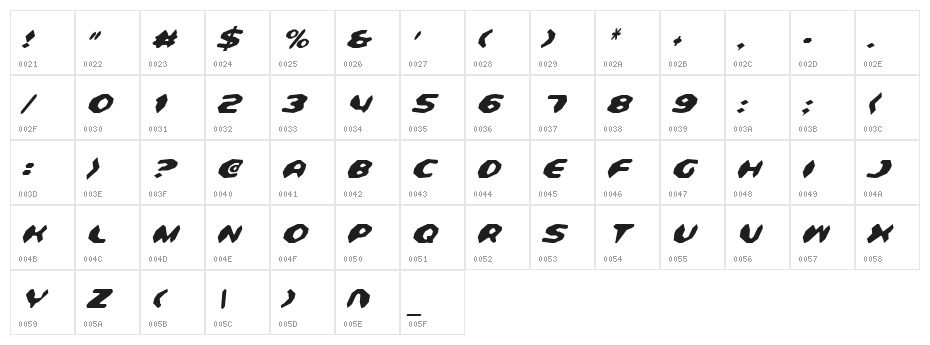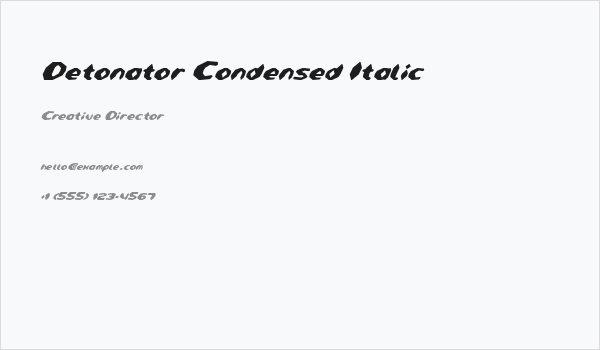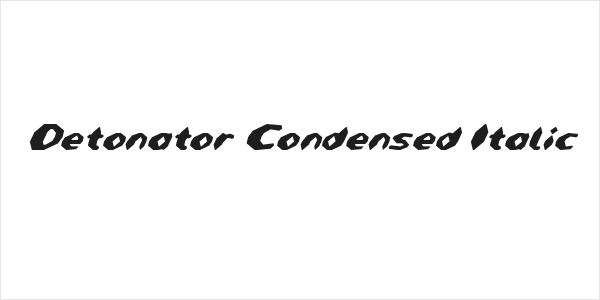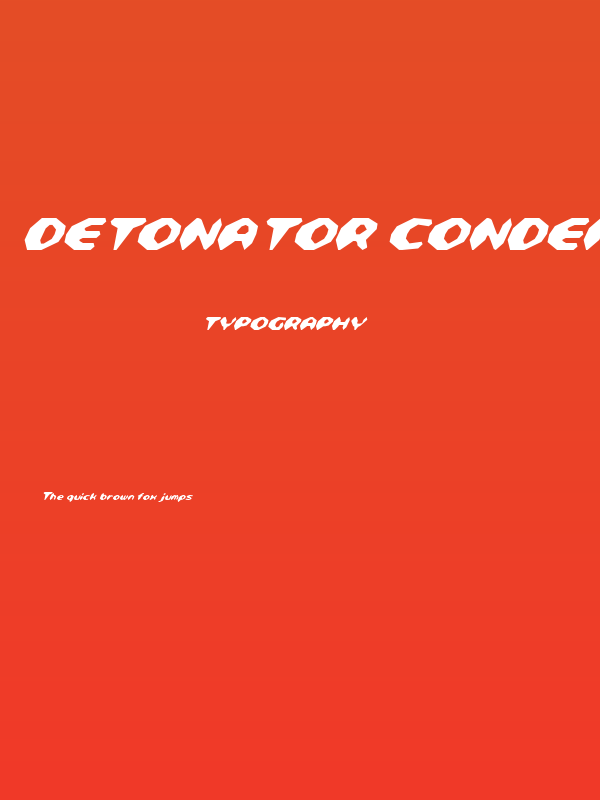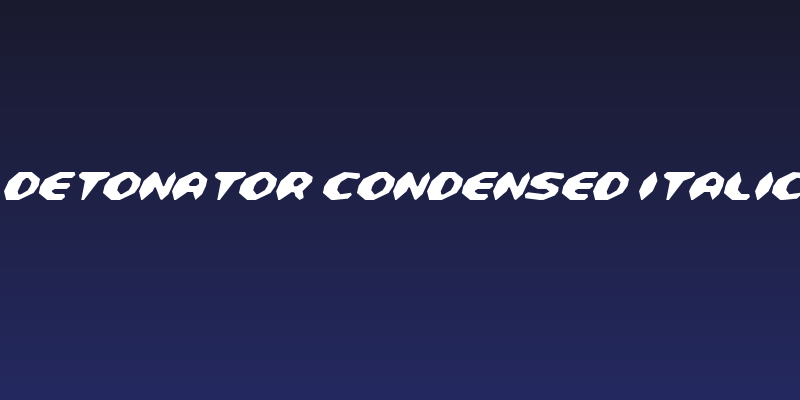
Detonator Condensed Italic Font
Detonator Condensed Italic Description
This font features a bold and dynamic style with a condensed and italicized form. The characters are sharply angled, giving a sense of movement and energy. The strokes are thick and consistent, providing a strong visual impact. The uppercase and lowercase letters maintain a cohesive design, while the numbers and special characters complement the overall aesthetic. This font is ideal for projects that require a bold statement, such as posters, headlines, or branding materials. Its unique style ensures it stands out in any design context.
| Proposed Projects | Ideal for posters, headlines, branding materials, and any design needing a bold statement. |